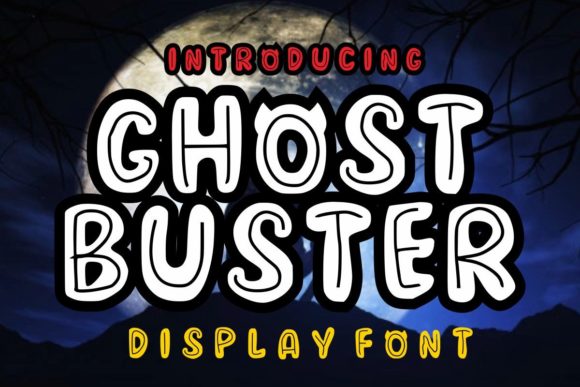
Introducing Ghost Buster, the captivating and approachable display font designed to elevate your creations with a breezy and contemporary flair. This font family, a masterpiece by the renowned Infinity Art Studio, is a digital treasure trove of expressive and authentic typefaces, each stroke a testament to individuality and creativity.
Step into a world where your words come alive, where your designs dance with energy, and your ideas find their voice through the enchanting curves and edges of Ghost Buster. This remarkable font is not just a collection of letters, it's a gateway to a realm where typography meets artistry.
Whether you're composing a captivating cover letter that demands attention, crafting a heartfelt greeting card that speaks volumes, or creating a stunning poster that commands a room, Ghost Buster is your steadfast companion. Its playful personality shines through in every character, adding a touch of whimsy and charm to your creations.
Unleash your inner designer and explore the limitless possibilities that Ghost Buster holds. Dive into a symphony of styles, where each letterform dances in harmony, creating a visual masterpiece that captivates and inspires.
With Ghost Buster, you'll never settle for ordinary typography again. Its versatility knows no bounds, effortlessly adapting to a myriad of design projects. From elegant wedding invitations to playful social media posts, from sleek logos that leave a lasting impression to eye-catching marketing materials that demand attention, Ghost Buster is your trusted ally in the realm of visual communication.